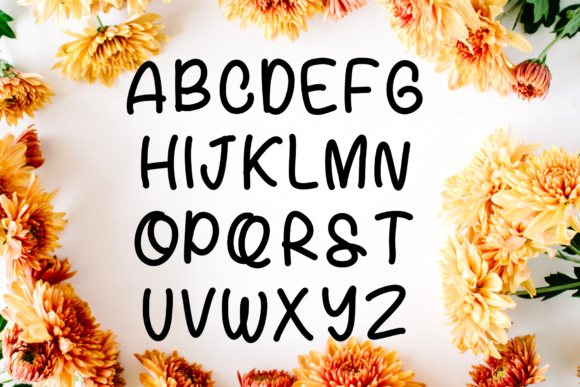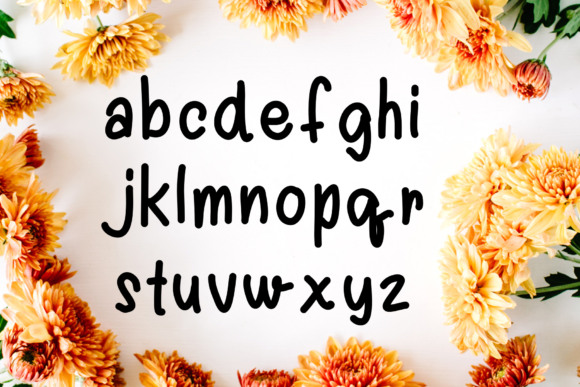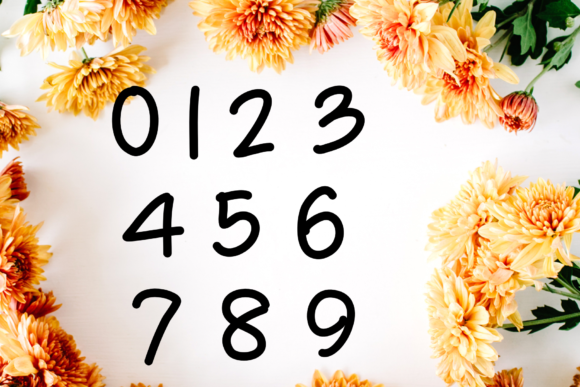
Gracelynn Font: The Sweetest Addition to Your Designs
Are you a designer or crafter looking for a font that adds a touch of whimsy and sweetness to your projects? Look no further than Gracelynn Font! This adorable handwritten font is sure to bring a smile to your face and a dash of personality to your designs.
What is Gracelynn Font?
Gracelynn Font is a unique and charming handwritten font that is perfect for a variety of design projects. Its quirky and playful style makes it ideal for use in crafts, digital art, and graphic design. With its sweet and endearing feel, Gracelynn Font is sure to capture the hearts of designers and crafters alike.
Key Features of Gracelynn Font
• Cute and Quirky: Gracelynn Font has a distinctive and charming style that sets it apart from other fonts.
• Handwritten: This font has a personal and human touch, making it perfect for designs that require a more personal feel.
• Versatile: Gracelynn Font can be used in a wide range of design projects, from digital art to crafting and graphic design.
• Easy to Read: Despite its quirky style, Gracelynn Font is easy to read and understand, making it perfect for use in body text and headings.
How to Use Gracelynn Font in Your Designs
Gracelynn Font is incredibly versatile and can be used in a variety of design projects. Here are a few ideas to get you started:
• Digital Art: Use Gracelynn Font to add a personal touch to your digital art projects, such as illustrations, watercolor designs, and more.
• Crafting: Gracelynn Font is perfect for crafters who want to add a personal touch to their projects, such as handmade cards, scrapbooking, and more.
• Graphic Design: Use Gracelynn Font in your graphic design projects, such as brochures, flyers, and more, to add a touch of whimsy and personality.
• Social Media: Use Gracelynn Font to create eye-catching social media graphics, such as Instagram posts, Facebook graphics, and more.
Tips for Getting the Most Out of Gracelynn Font
Here are a few tips for getting the most out of Gracelynn Font:
• Experiment with Colors: Gracelynn Font looks great in a variety of colors, so don’t be afraid to experiment and find the perfect color scheme for your design.
• Mix and Match: Try pairing Gracelynn Font with other fonts to create a unique and eye-catching design.
• Play with Size: Gracelynn Font looks great in a variety of sizes, so don’t be afraid to experiment and find the perfect size for your design.